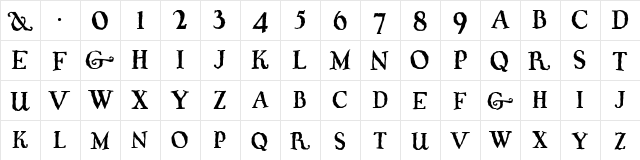
Whiffy Regular
Design Context for Whiffy Typeface
Whiffy is a composed and adaptable typeface that performs quietly and consistently across a wide range of design contexts.